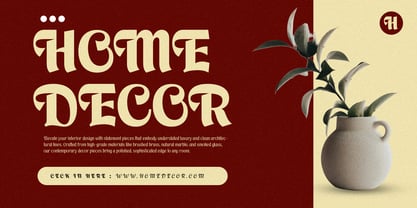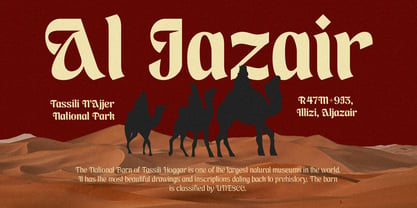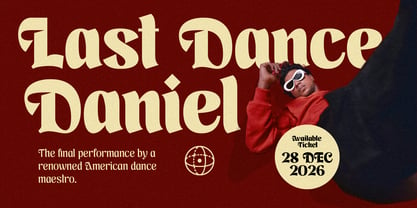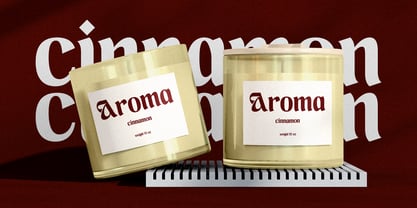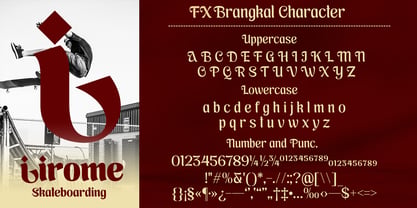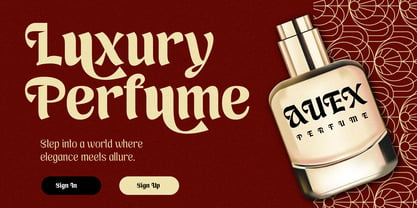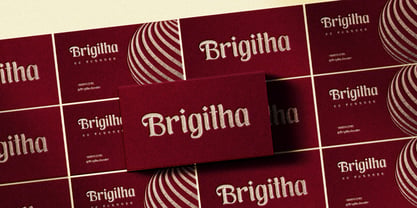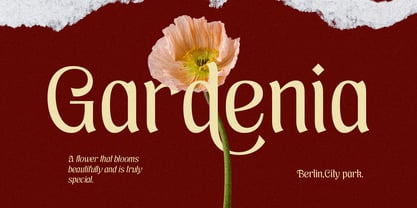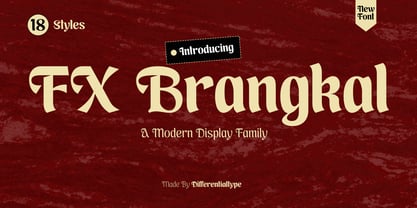
FX Brangkal
La familia tipográfica FX Brangkal fue diseñada por Sidik Sidik y publicada por Differentialtype. FX Brangkal contiene 18 estilos y opciones de paquete familiar. Más información sobre esta familia
FX Brangkal is a striking brush display typeface that blends expressive calligraphy strokes with refined elegance. This font family features dramatic high contrast, unique curvature, and dynamic hand-drawn strokes that instantly draw the eye.
Designed for high-impact typography, FX Brangkal comes complete with 18 versatile styles ranging from a delicate Thin to a powerful Black, alongside matching Italics for every weight. Its bold brush aesthetics and sophisticated detailing make it exceptionally well-suited for editorial headlines, luxury branding, striking logos, poster designs, and contemporary packaging.
With its expansive weight range and distinct calligraphy flair, FX Brangkal delivers both creative flexibility and timeless visual appeal for your next standout project.